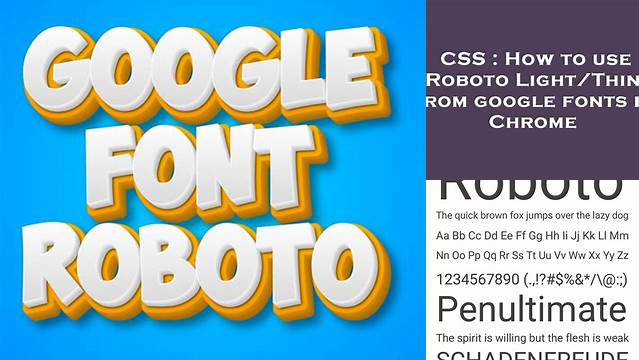
Google Fonts CSS: Using Roboto
Understanding the Power of Google Fonts
Hey guys, let's dive into the awesome world of web typography! When it comes to making your website look chef's kiss, the fonts you choose play a massive role. And when we talk about great fonts, Google Fonts is often the first place many of us head to. It's a treasure trove of free, high-quality typefaces that can instantly elevate your design. One of the most popular and versatile fonts available on this platform is Roboto. So, how do we actually get these beautiful fonts onto our webpages? This is where the magic of CSS href and Google Fonts comes into play. We're not just talking about making text readable; we're talking about setting the entire mood and personality of your online presence. A well-chosen font can make your content feel more professional, more approachable, or even more exciting. Google Fonts offers a massive library, making it easy to find something that perfectly matches your brand or personal style. But with so many options, it can be a bit overwhelming at first. That's why focusing on a powerhouse like Roboto is a great starting point. It's designed to be highly legible on screens of all sizes, making it a fantastic choice for pretty much any project, from a personal blog to a large e-commerce site. Understanding how to integrate these fonts using CSS is a fundamental skill for any web developer or designer, and it's surprisingly straightforward once you know the ropes. We'll be exploring the practical steps involved, ensuring you can confidently add Roboto and other Google Fonts to your projects.
What is Roboto Font?
So, what exactly is this Roboto font that's so popular, you ask? Well, Roboto is a sans-serif typeface developed by Google. It was specifically designed for the Android operating system and has since become one of the most widely used fonts across the web. What makes Roboto so special? It’s a neo-grotesque typeface, meaning it has a clean, modern, and highly legible design. It strikes a beautiful balance between geometric and organic forms, giving it a friendly yet sophisticated feel. The letterforms are open, which helps with readability, especially at smaller sizes on various screens. Think about reading text on your phone, a tablet, or a desktop monitor – Roboto is engineered to look crisp and clear on all of them. It has a generous x-height (the height of lowercase letters like 'x') which further enhances its readability. Google really put a lot of thought into its creation, aiming for a typeface that was versatile enough for UI design but also aesthetically pleasing for longer passages of text. It comes in a wide range of weights, from ultra-light to black, giving designers incredible flexibility. Whether you need a bold headline or a subtle body text, Roboto has you covered. This extensive family of styles means you don't need to hunt for multiple fonts to achieve different looks; Roboto can often handle it all. Its neutral yet distinctive character makes it suitable for a vast array of applications, from corporate websites to creative portfolios. It’s the reliable workhorse of the font world, dependable and always looking good.
Why Choose Roboto for Your Website?
Alright, guys, let's talk turkey. Why should Roboto be your go-to font choice for your next web project? There are a ton of fonts out there, so what makes Roboto stand out? First off, it's incredibly versatile. Whether you're designing a sleek, modern tech startup site, a cozy personal blog, or a busy e-commerce store, Roboto just works. It’s designed to be highly readable across all devices and screen sizes, which is a huge win in today's mobile-first world. You don't want your users squinting at tiny text on their phones, right? Roboto’s clean lines and open letterforms ensure legibility, making your content accessible and enjoyable to read. Secondly, it's part of the Google Fonts library, which means it's free to use. Yep, you heard that right – no licensing fees, no hidden costs. This is a massive advantage, especially for small businesses, freelancers, or anyone working on a tight budget. Google makes it super easy to integrate their fonts into your website, and Roboto is no exception. Another big plus is its extensive weight and style family. Roboto isn't just one font; it’s a whole collection. You've got thin, light, regular, medium, bold, black, and their italic counterparts. This allows for great typographic hierarchy and visual interest without needing to mix and match different font families, which can sometimes lead to clashing designs. Using a single, well-designed font family like Roboto throughout your site can create a cohesive and professional look. Plus, let's be honest, it just looks good. It's modern, clean, and has a subtle warmth that makes it approachable. It's the kind of font that doesn't scream for attention but quietly supports your content, letting your message shine through. It’s the reliable friend of the design world, always there to make things look polished.